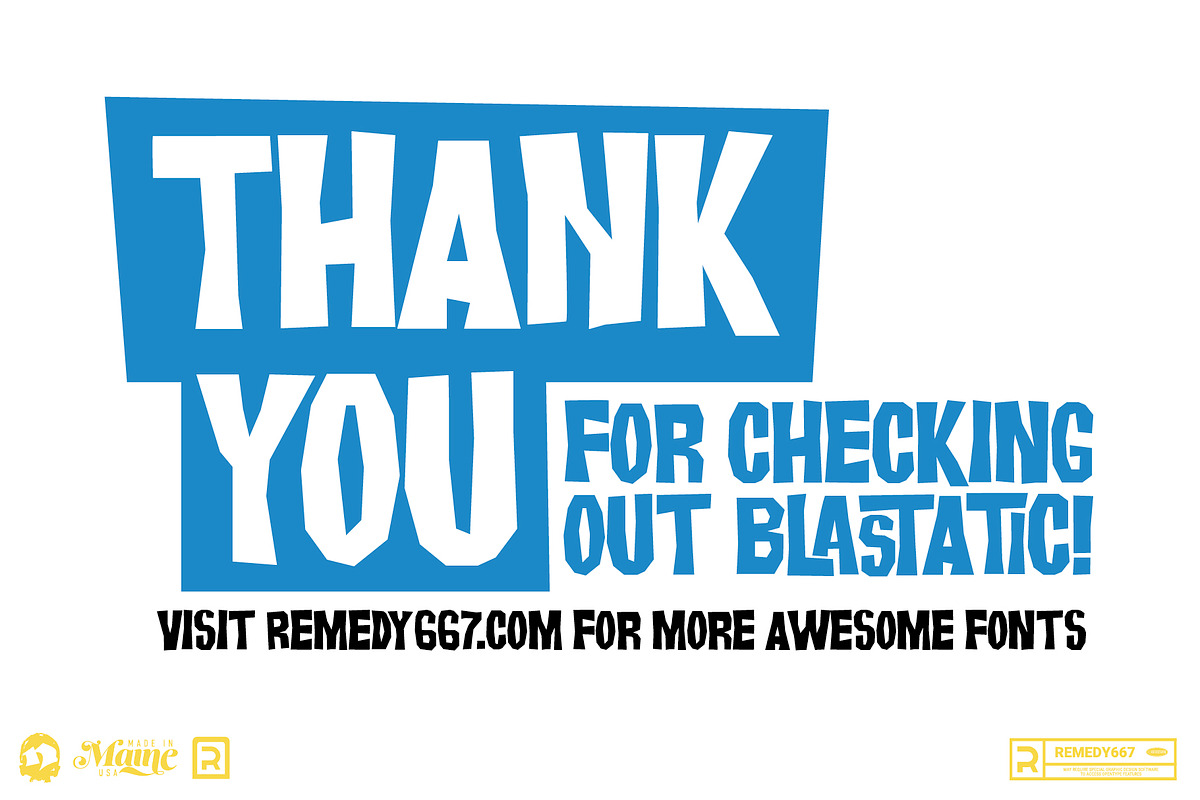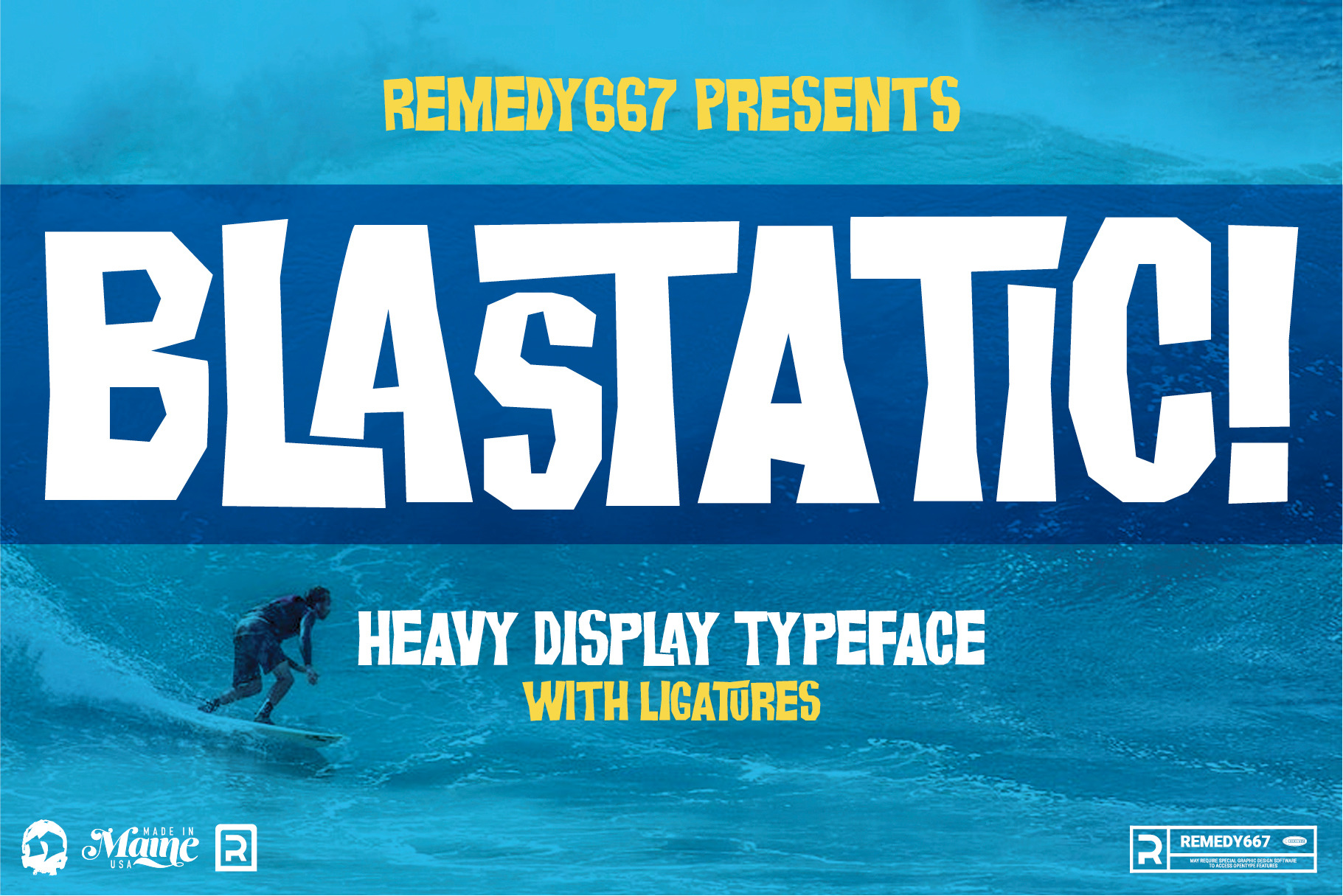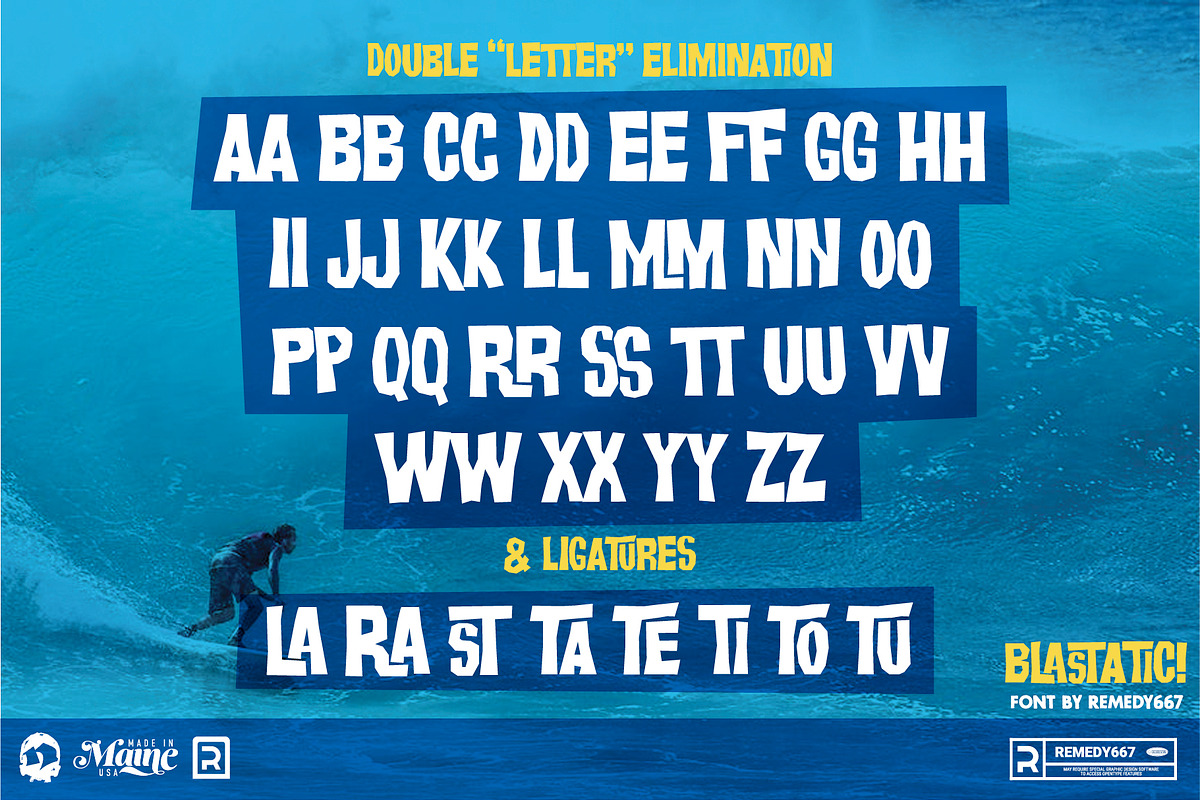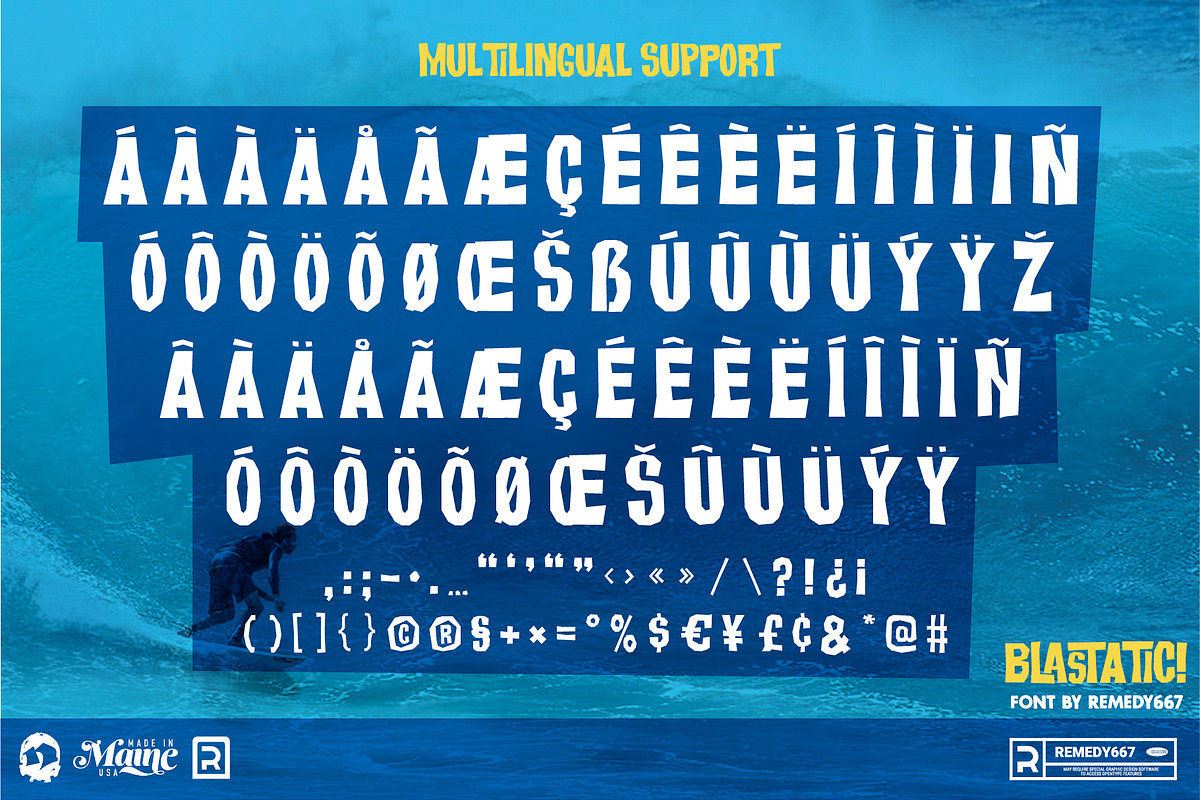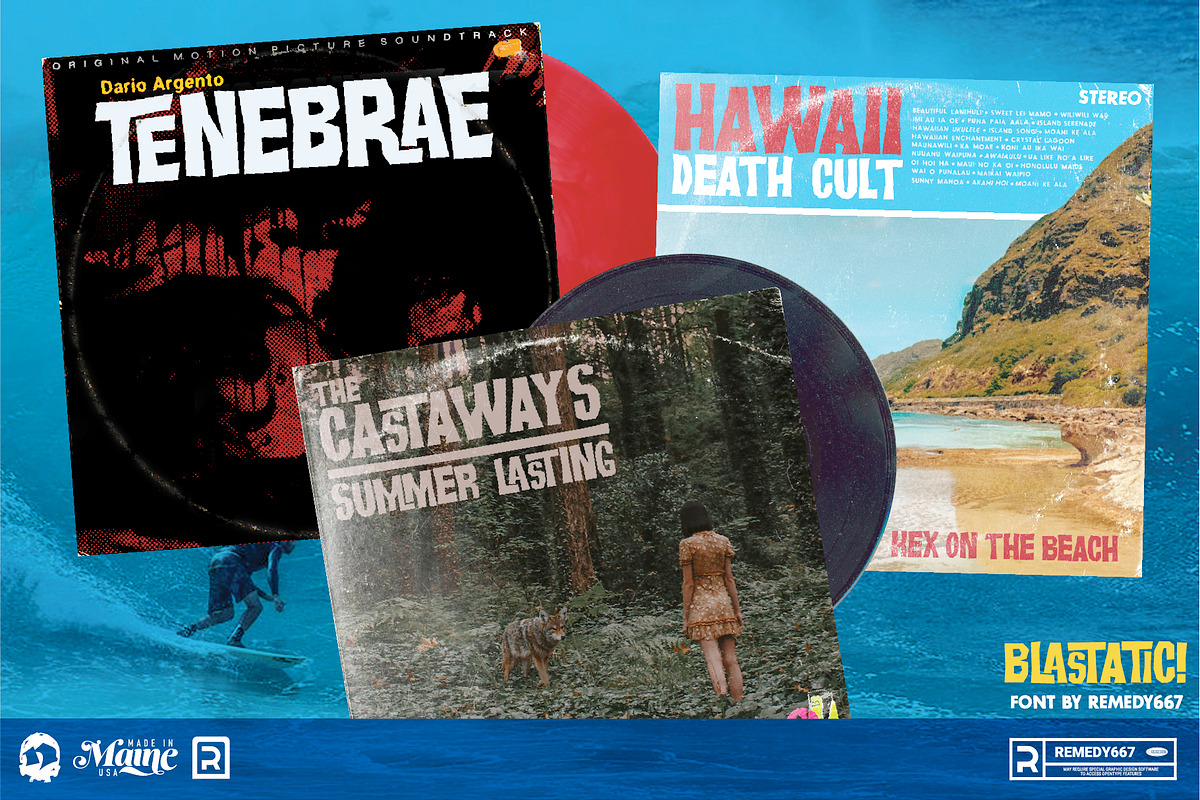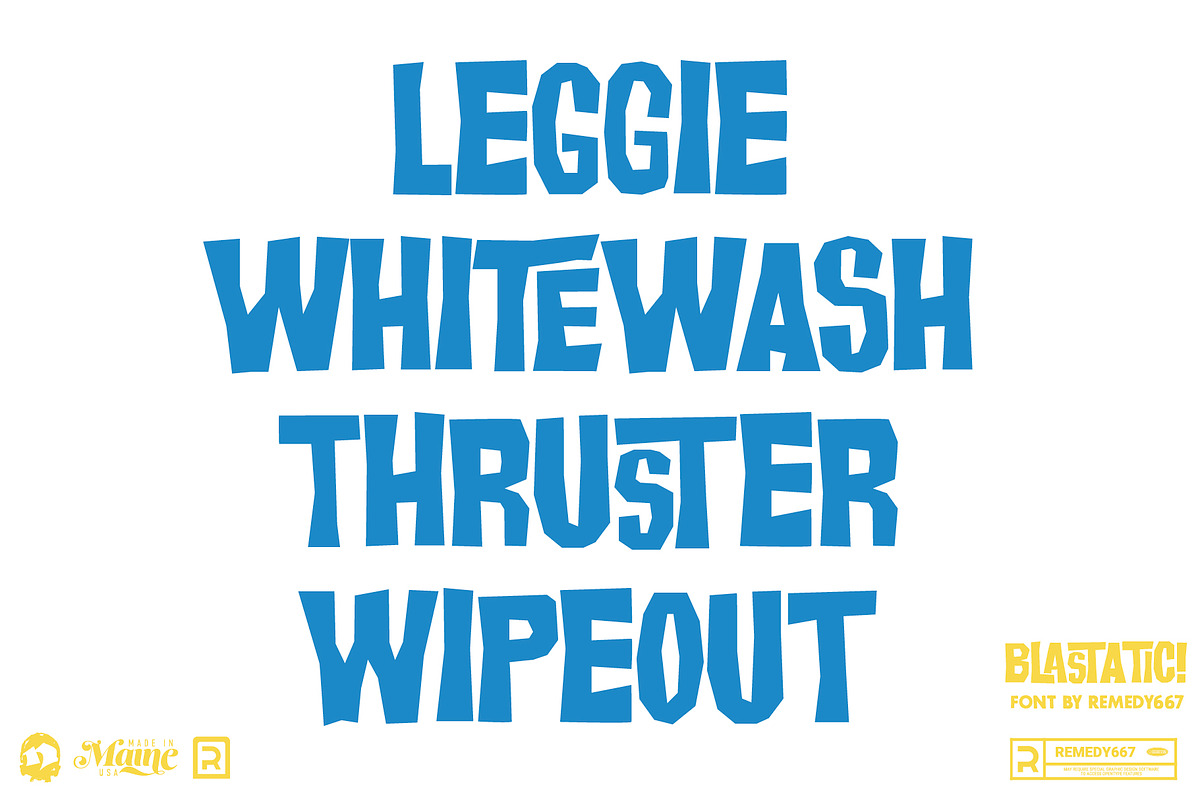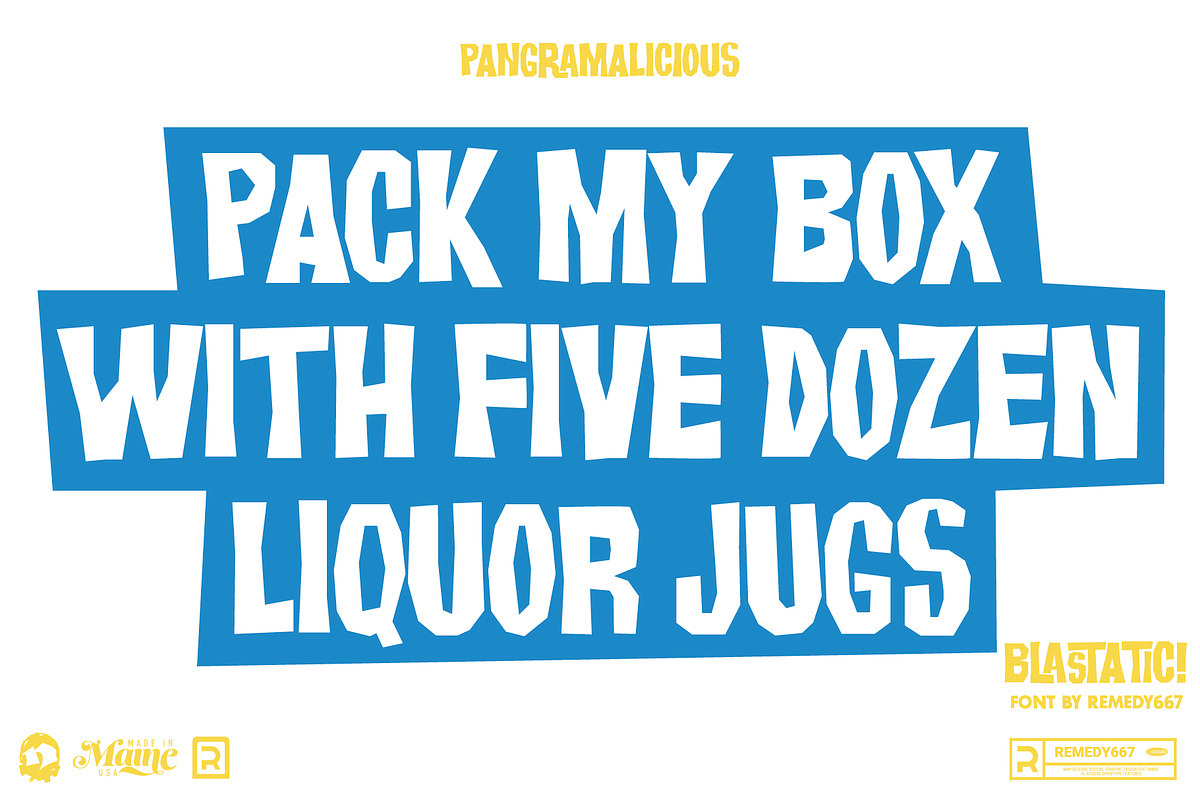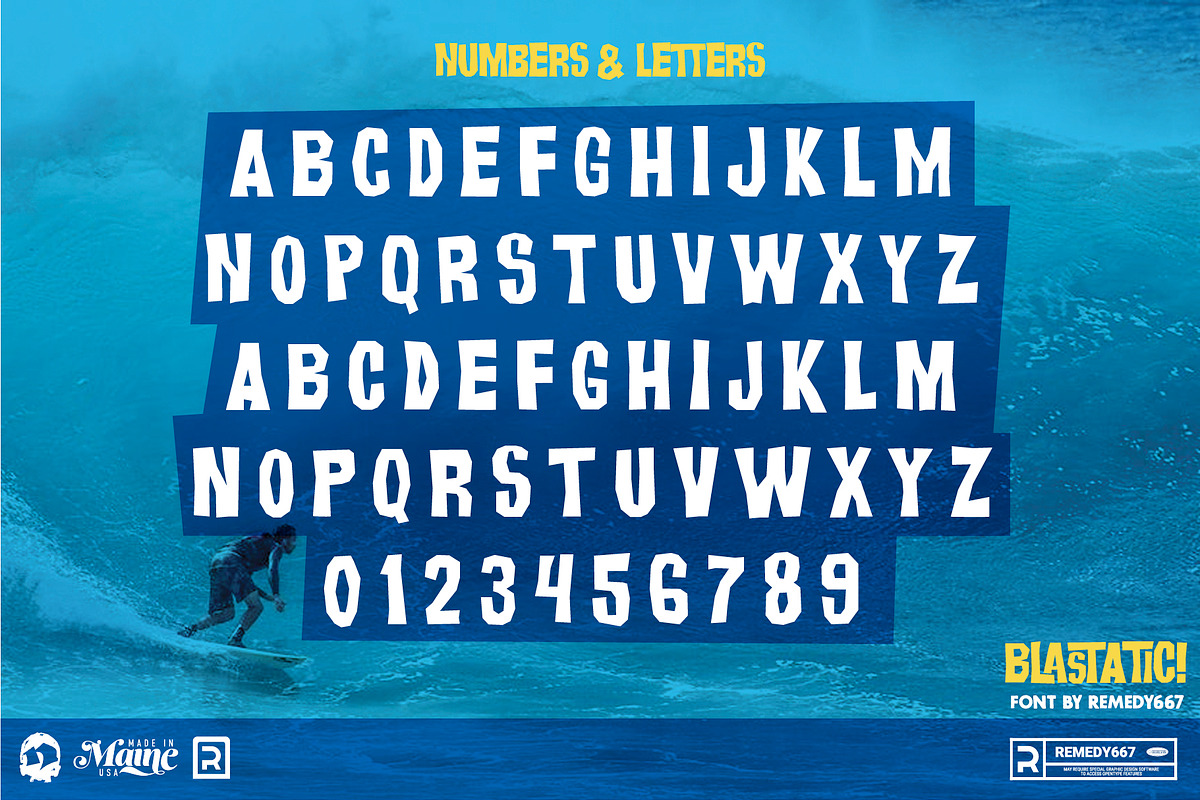
Blastatic! - Modern Font
Blastatic! is a highly versatile and unique sans-serif display typeface, but still desires an offbeat, modern style. Blastatic!, new from Remedy667, has the power to turn your designs into masterpieces. With ligatures, extended glyphs, and complimentary alternates, this typeface that can do it all. Whether you're designing for a Jazz Album, Godzilla Movie, or Hot Rod Magazine, Blastatic! will give you an irresistible style. Saul Bass fans take note, this shit’ll give you vertigo.
- Clean and modern design packs a powerful punch of old-school vintage vibes.